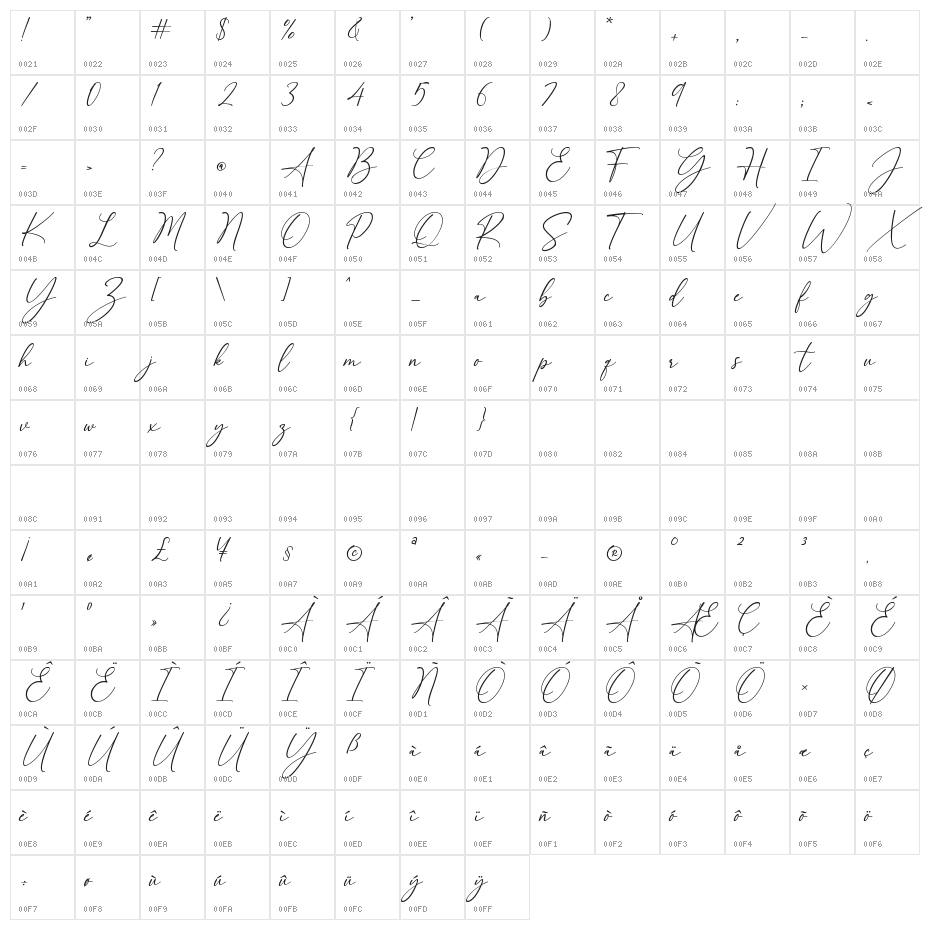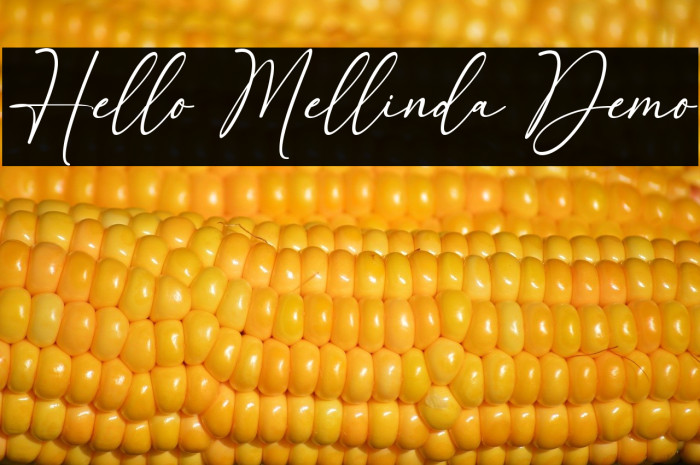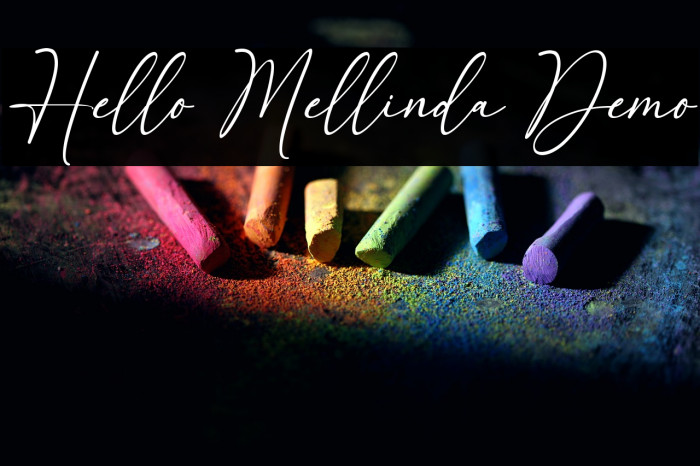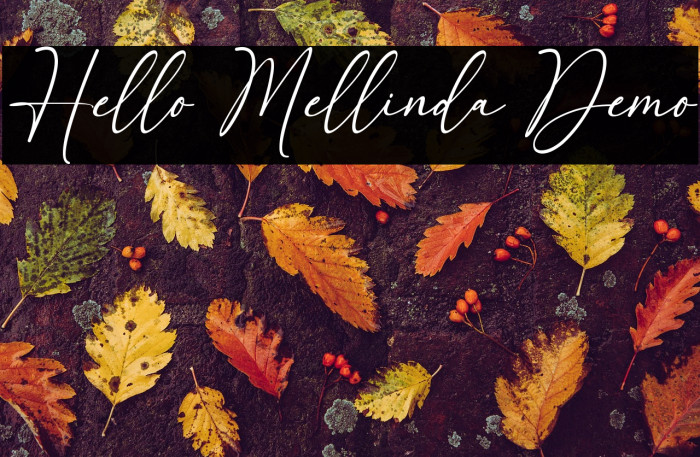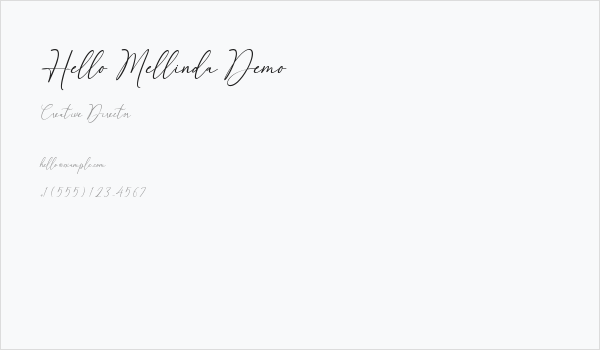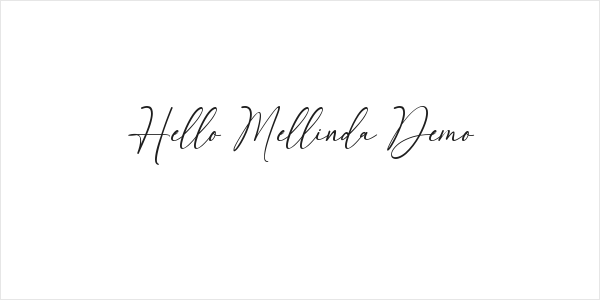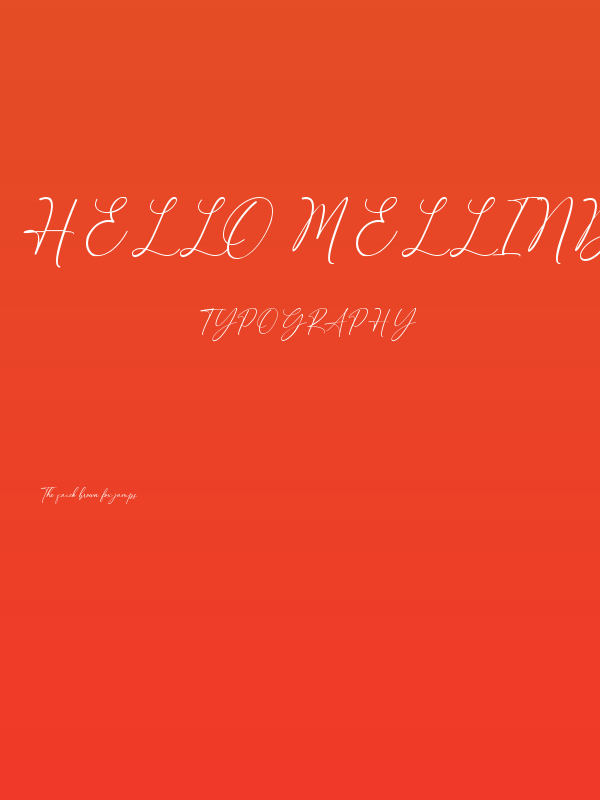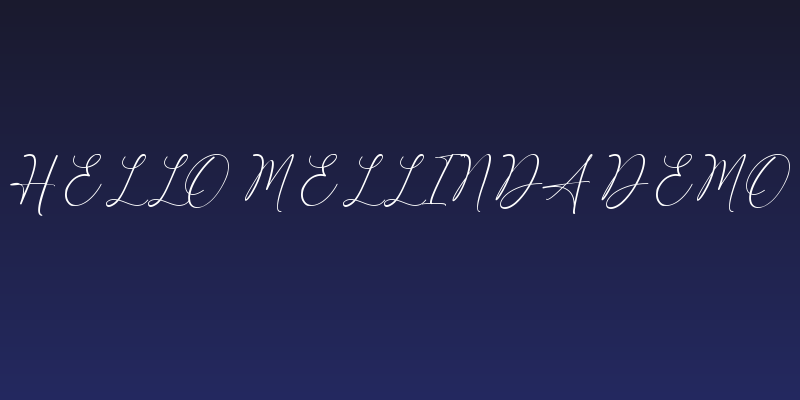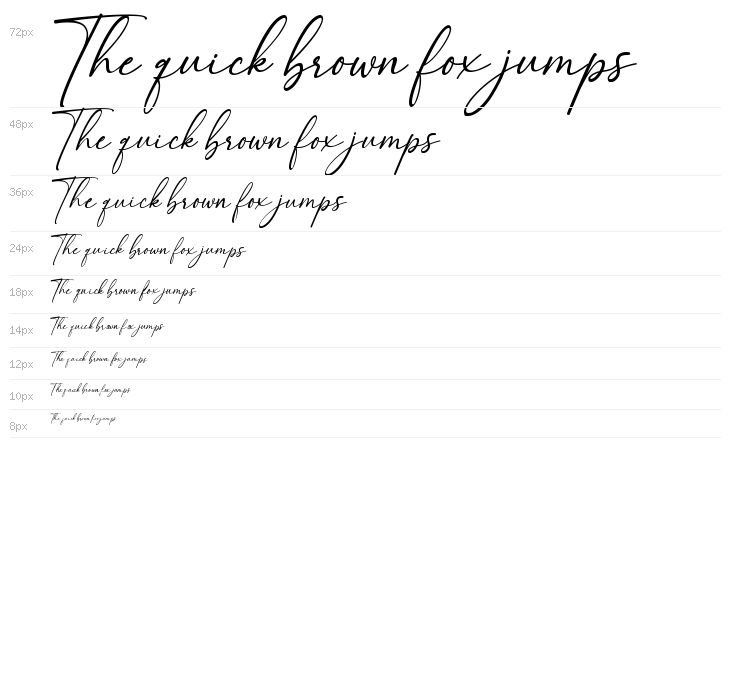
Hello Mellinda Demo Font
Hello Mellinda Demo Description
A flowing, elegant script font with a handwritten style, featuring smooth curves and a natural, personal touch.
| Use Case | Logos, Invitations, Personal notes |
| Proposed Projects | Wedding invitations, greeting cards, personal branding. |